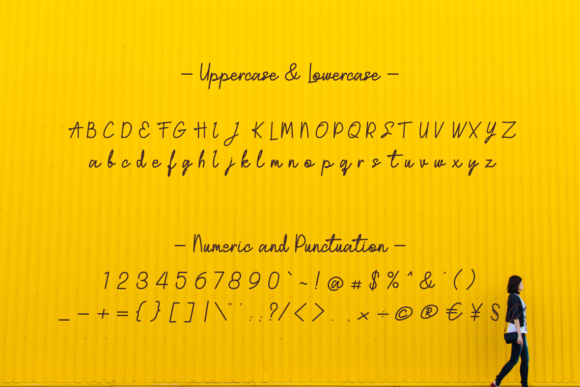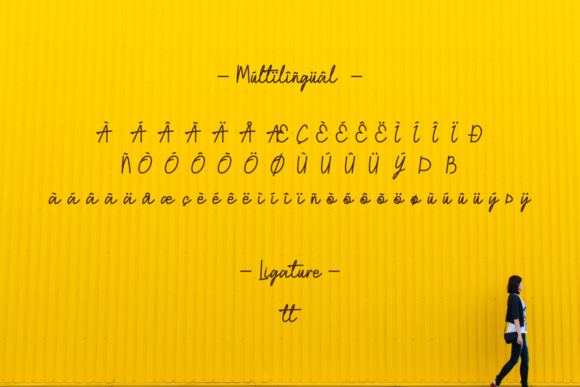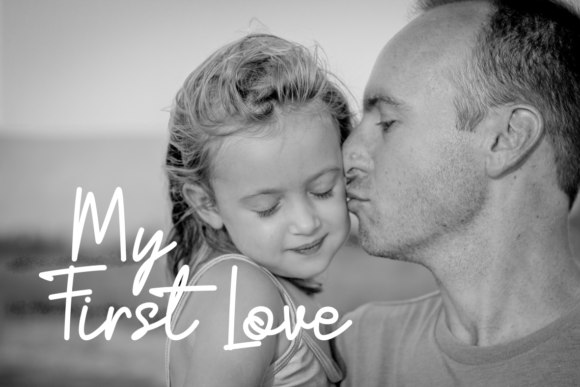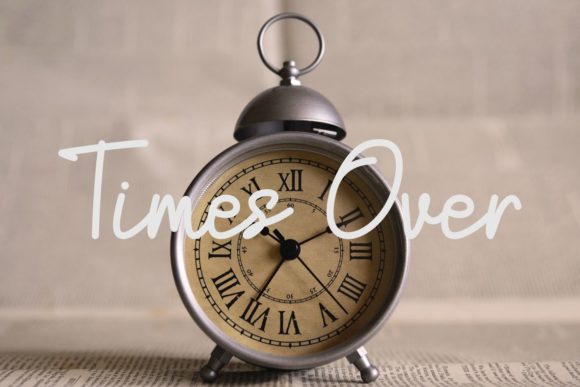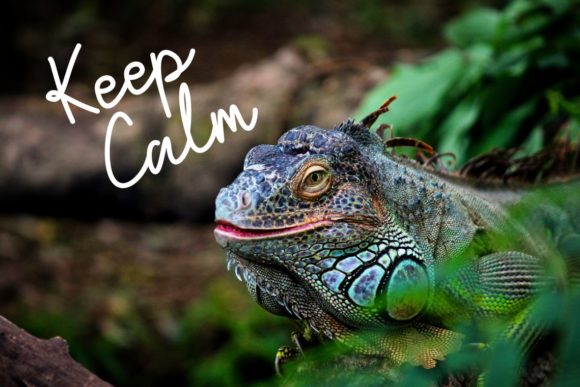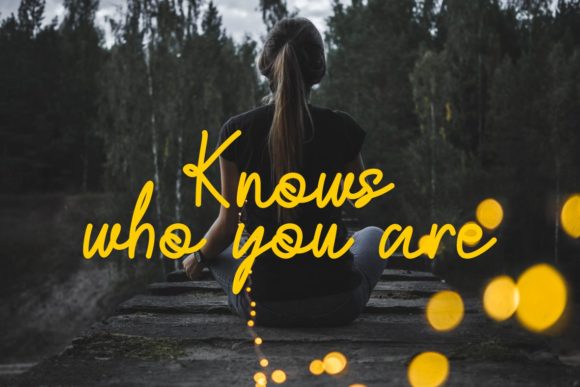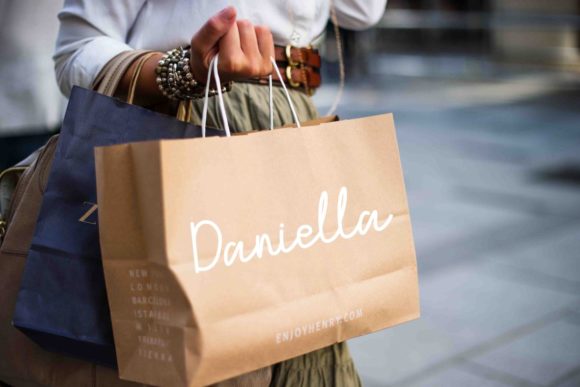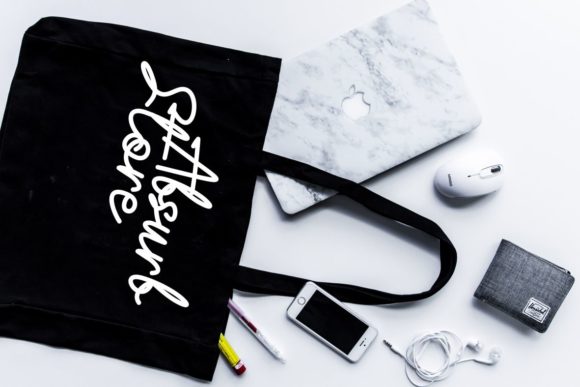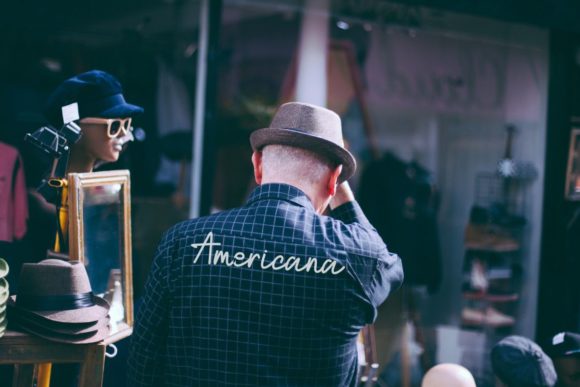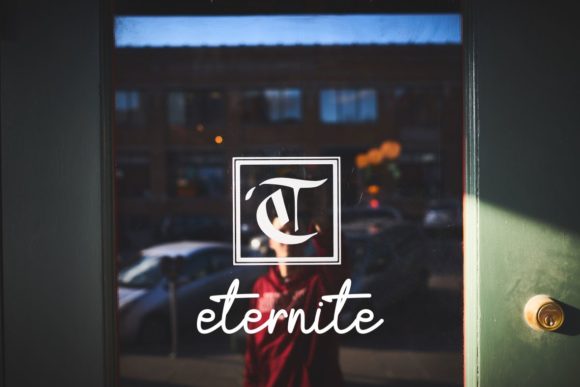
Malikha Font
About Malikha Font
Malikha is a timeless handwritten font, perfectly combining modern and classic elements. Fall in love with its incredibly versatile style and use it to create spectacular designs!